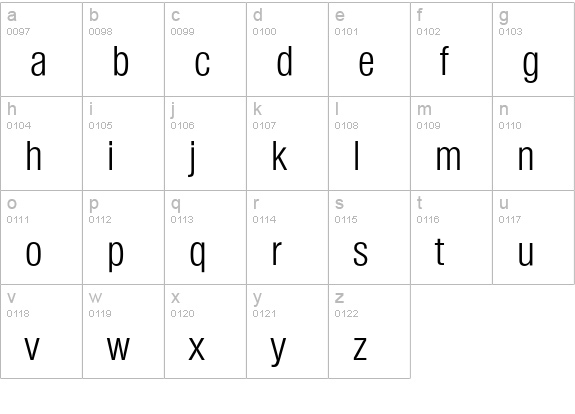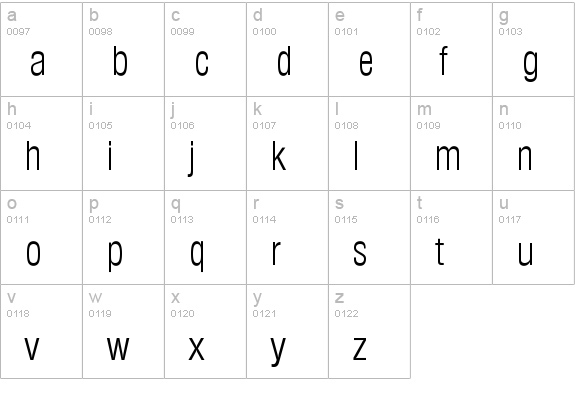
Olympia-LightCond Font Details
Olympia-LightCond is a sleek and elegant font that exudes sophistication and modernity. With its condensed form, this typeface is perfect for creating a clean and professional look in various design projects. Its light weight adds a touch of delicacy and refinement, making it suitable for use in branding, editorial design, and more. The best part? Olympia-LightCond is available for free download at FontsMarket.com, allowing designers and creatives to access this high-quality font without any cost. Don't miss the opportunity to enhance your projects with the timeless appeal of Olympia-LightCond.